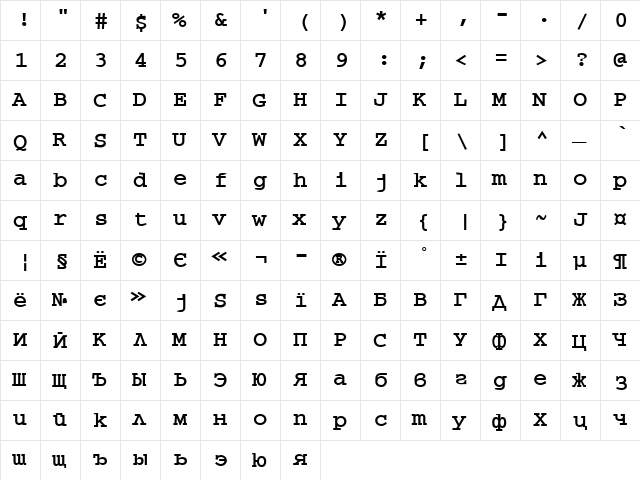
Maritsa Bold
Design Context for Maritsa Typeface
Maritsa is a composed and adaptable typeface that performs quietly and consistently across a wide range of design contexts. The heavy weight commands attention and anchors typographic hierarchies.